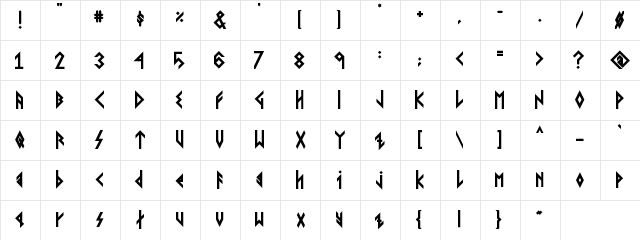
VIKING, YOUNGER Runes Bold Regular
Design Context for VIKING, YOUNGER Runes Bold Typeface
VIKING, YOUNGER Runes Bold is a composed and adaptable typeface that performs quietly and consistently across a wide range of design contexts. The heavy weight commands attention and anchors typographic hierarchies.